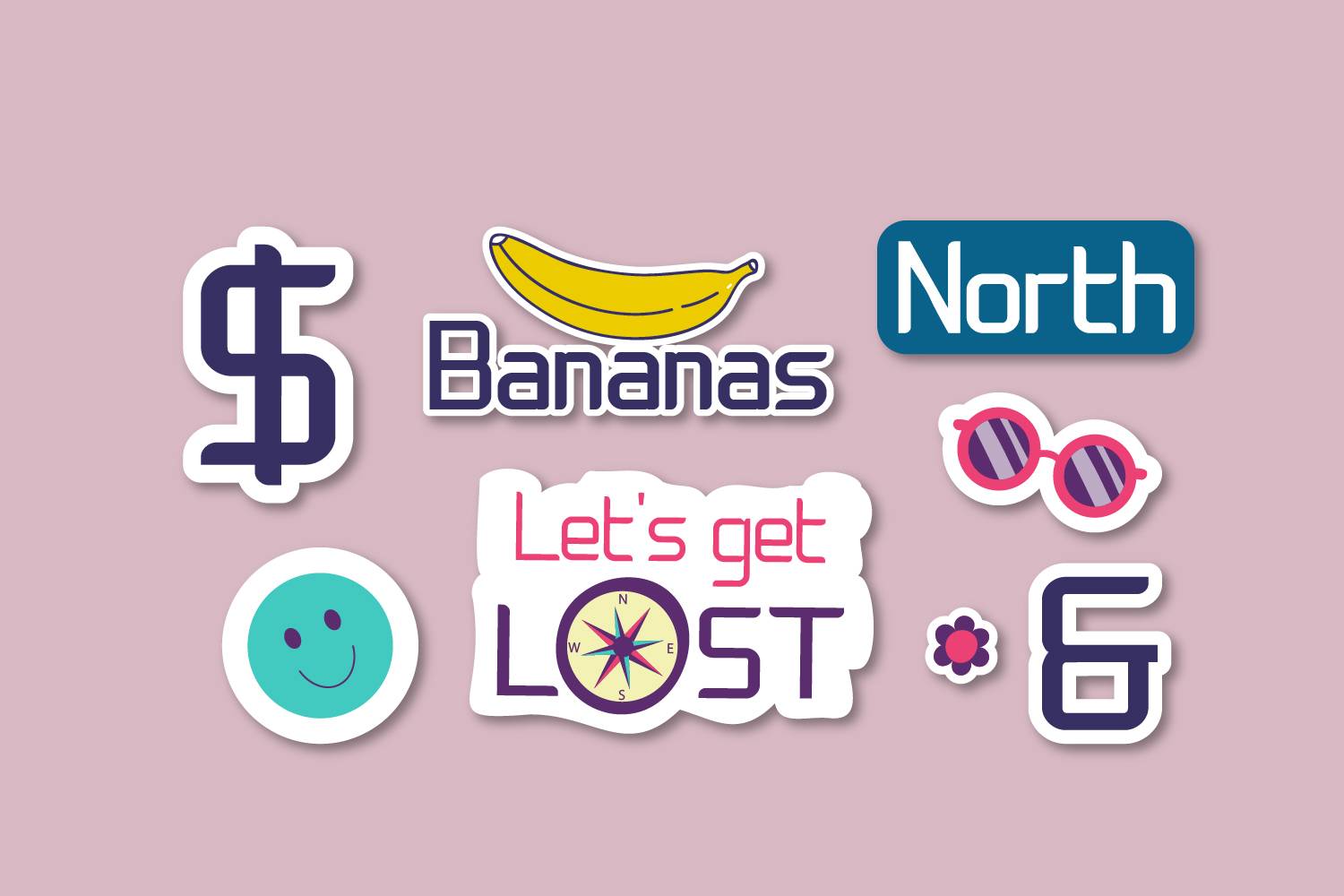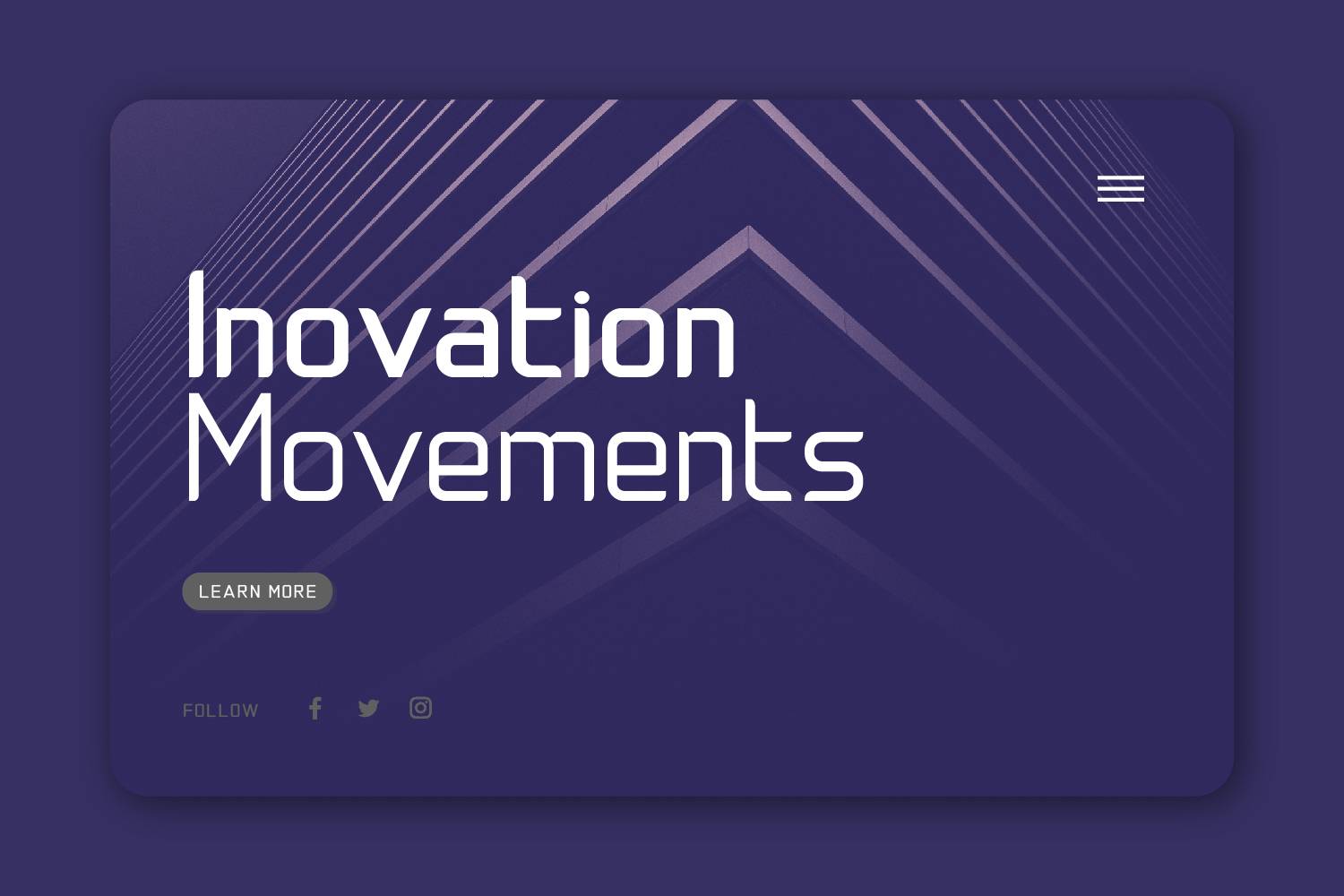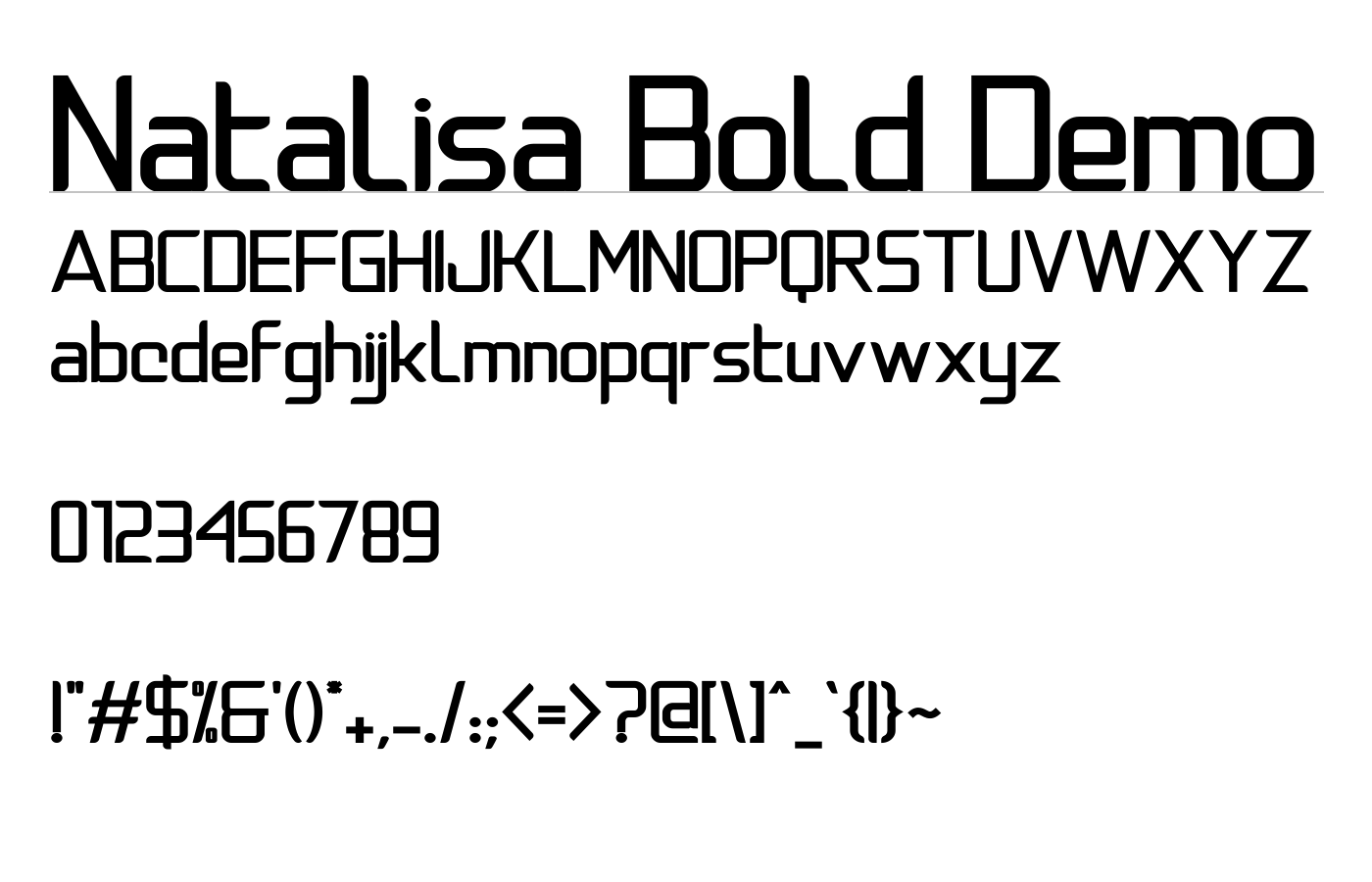
Natalisa is a bold, condensed sans serif font with a clean, modern feel and a slightly technical edge. Its geometric shapes and uniform stroke weight give it a futuristic yet approachable look, making it ideal for technology branding, contemporary headlines, and editorial design where clarity and impact are essential. This font works well in bold displays and creative projects that want to convey precision and innovation with a touch of uniqueness.
Natalisa Font
About Natalisa Font
| Font family | Natalisa Font |
| Designer | Sabrcreative Studio |